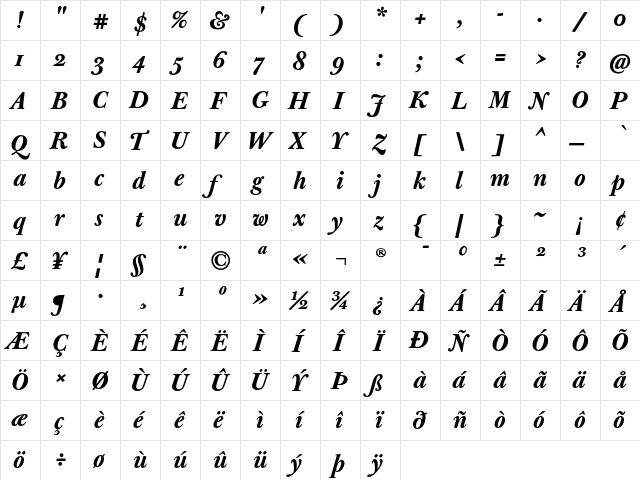
J Baskerville Text Bold Italic Font Preview
Design Context for J Baskerville Text Typeface
J Baskerville Text offers clean, dependable letterforms without strong stylistic allegiance, making it a practical choice for designers who need flexibility. The dynamic lean of this cut emphasises speed and emphasis in any layout. Its bold stroke weight gives it real presence on the page.
Pro Tip: Try J Baskerville Text for annotation and caption copy alongside an upright companion — the contrast in angle creates a dynamic but ordered typographic system.